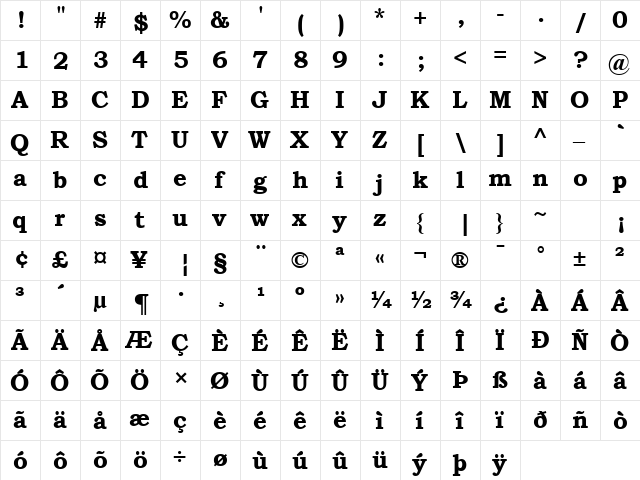
GE Booker Bold
Design Context for GE Booker Typeface
GE Booker is a composed and adaptable typeface that performs quietly and consistently across a wide range of design contexts. Its bold stroke weight gives it real presence on the page.
Pro Tip: Use GE Booker in both headline and body roles to test its range before committing to a single application.